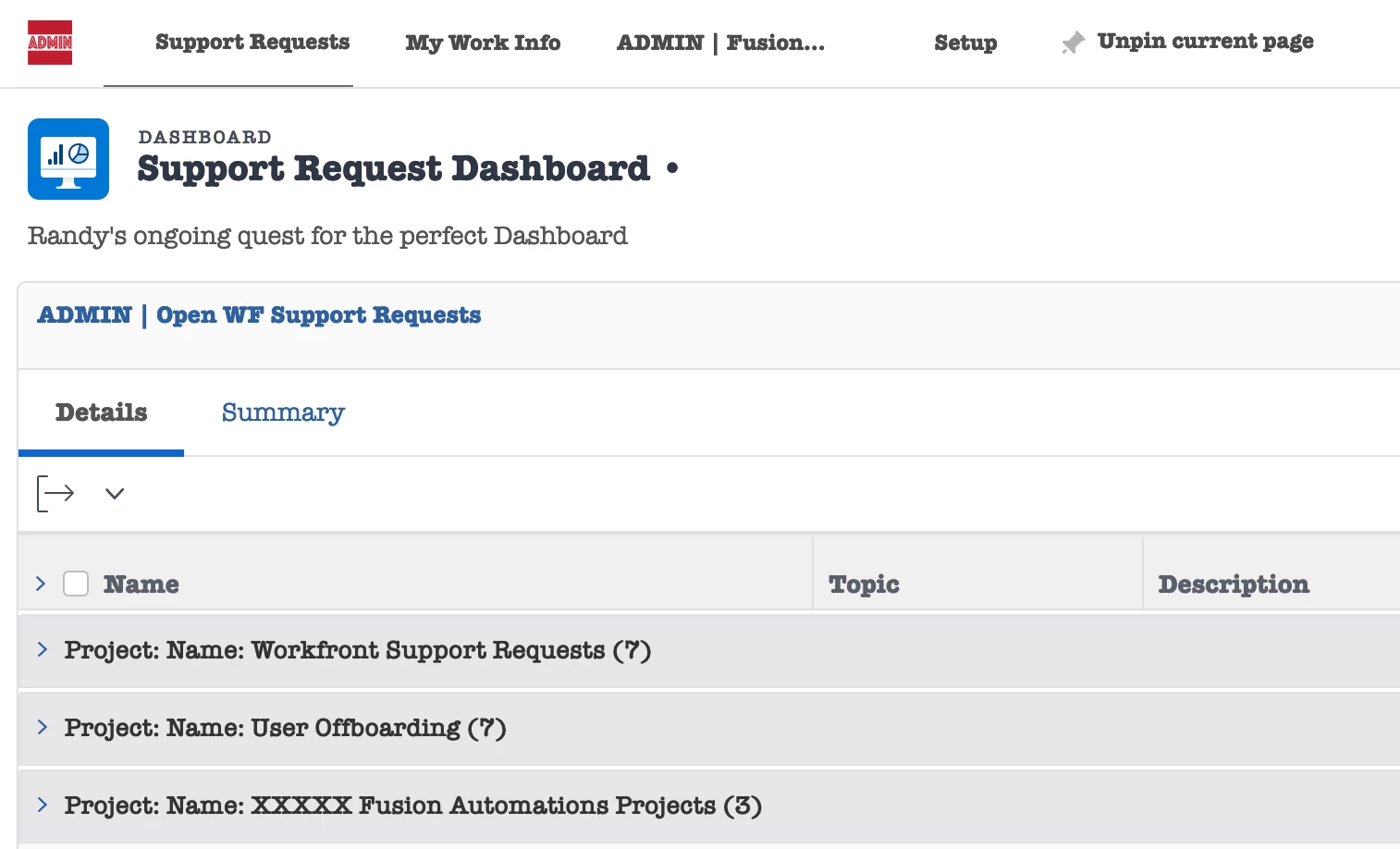
The new font update is awful. It is so much harder on the eyes/harder to read as well. Is there a way our system admin can switch it back?
I have also had users complain on both Mac and PC. It is hard to read and smaller. Not sure why they changed it!
The notes said it was to bring Workfront closer to Adobe's visual standard. So I assume their other apps use similar fonts, sizes, style, etc.
I have also had users complain to me about disliking the new font.
WOW! Sounds like I'm the only one who does like the new font. No complaints from my team either. Most of us are on a PC. Only the designers are on a Mac if that makes a difference.
Not sure about the PC, but on the Mac the font got smaller and narrower (Adobe Clear). I already have vision-impaired users who complained about Workfront not supporting browser-level zoom/enlargement very well.
Personally, I don't mind except it does strain my perscription readers a bit. Font needs to be like 0.5 to 1 point larger. I like the slightly narrower nature of the font as it should cram more info in a limited space.
Generally, things like this will be complained about and then people will "deal with it," but it becomes one more QoL things that build-up in a user's head that "WF sucks" and makes adoption that ittle bit more difficult. Death by a thousand cuts, basically.
Unfortunately, there is not.… unless you want to mess with your browsers default font settings.
On my Mac, Workfront is now using "Adobe Clean" as it's menu and Nav bar typeface. It may be different for your OS/browser. But it could be using "Adobe Clean", "Proxima Nova", Tahoma, Verdana, or Arial depending on OS/browser combination. Or if your default is Helvetica, usually on a Mac.
I can however change that within the browser font settings but there is no way to do it for every user across the board. Here is an example of American Typewriter font.